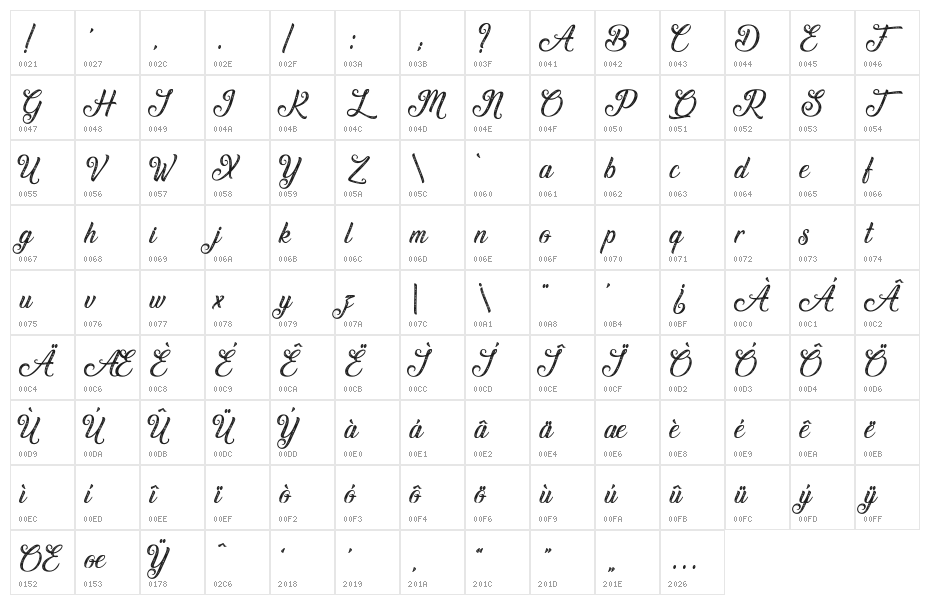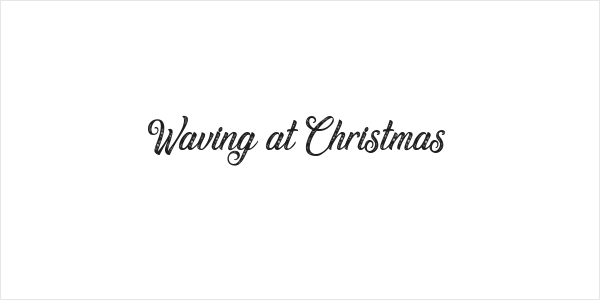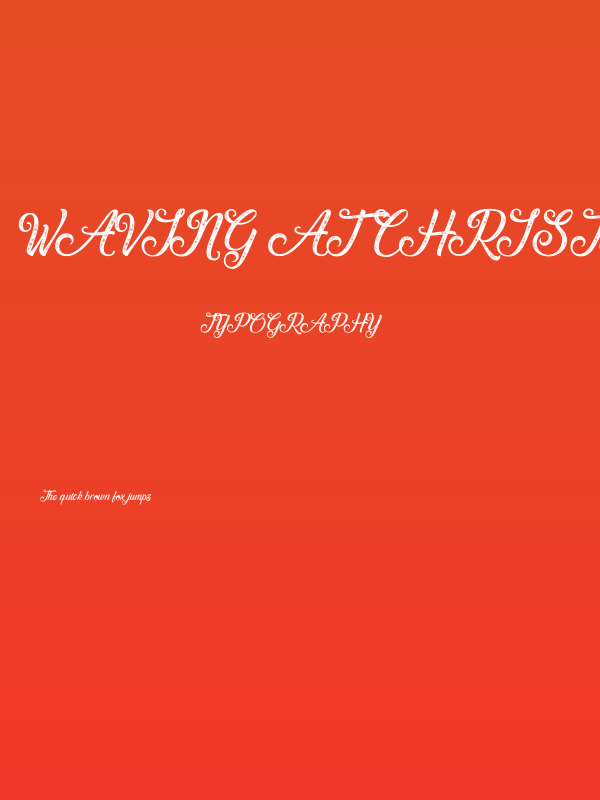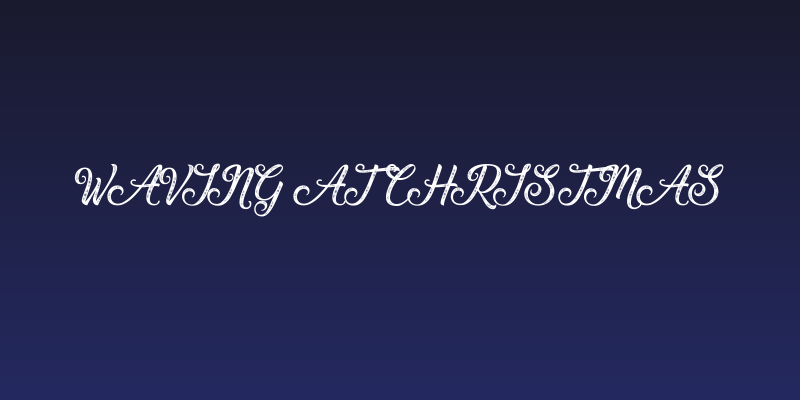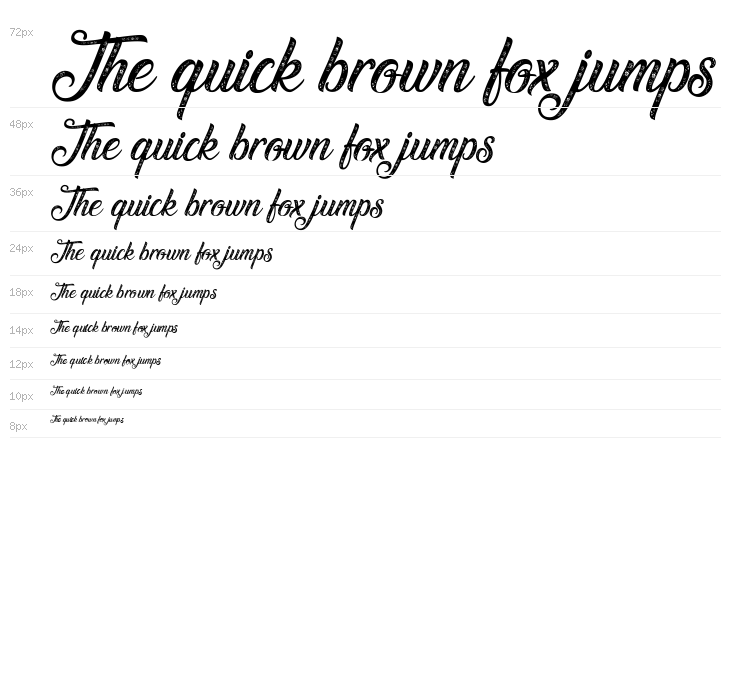
Waving at Christmas Font
Waving at Christmas Description
This font features an elegant and decorative script style with a festive flair. The characters are adorned with intricate swirls and loops, giving them a whimsical and ornate appearance. The uppercase letters are particularly elaborate, with extended flourishes that add a sense of movement and grace. The lowercase letters maintain a consistent style, complementing the uppercase with their own subtle embellishments. The font includes a textured effect, adding depth and a handcrafted feel. It's perfect for creating a warm and inviting atmosphere, ideal for holiday-themed designs or any project that requires a touch of elegance and charm.
| Proposed Projects | Ideal for holiday cards, festive invitations, decorative posters, and branding that requires a touch of elegance. |